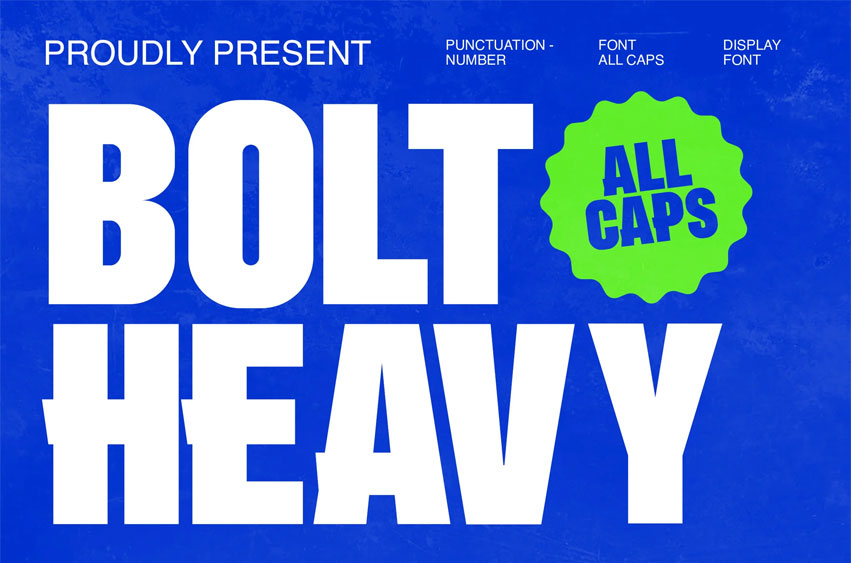
Bolt Heavy Font
Bolt Heavy Font  All caps characters (A–Z) • Numbers and basic punctuation • Heavy weight for impactful headlines • Modern sans serif, clean and easy to read • Perfect for posters, flyers, banners, and social media • Great for sports, music, urban, and bold branding projects